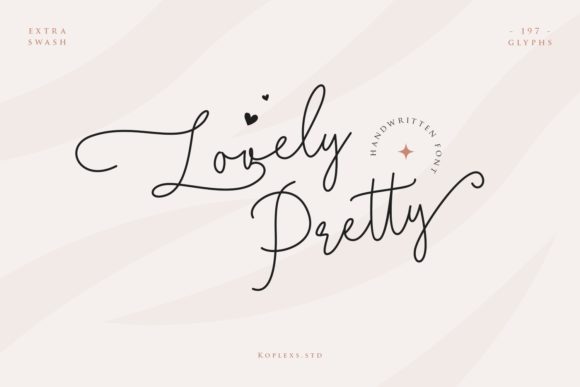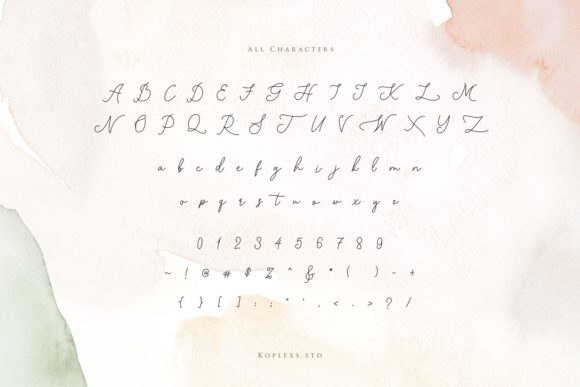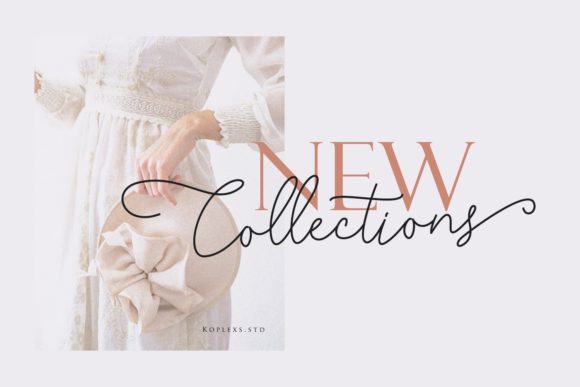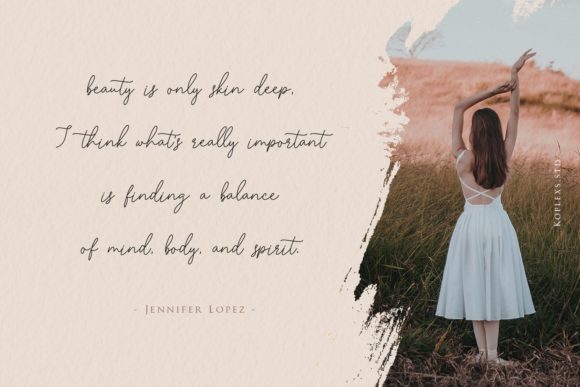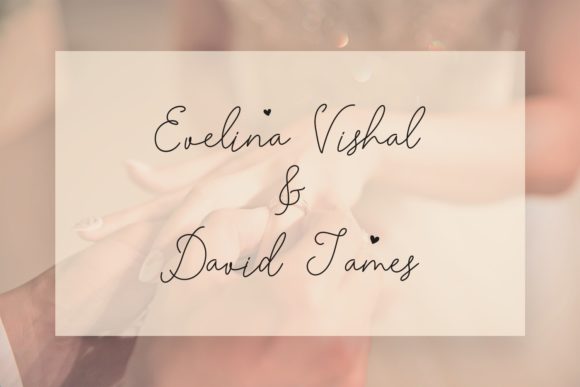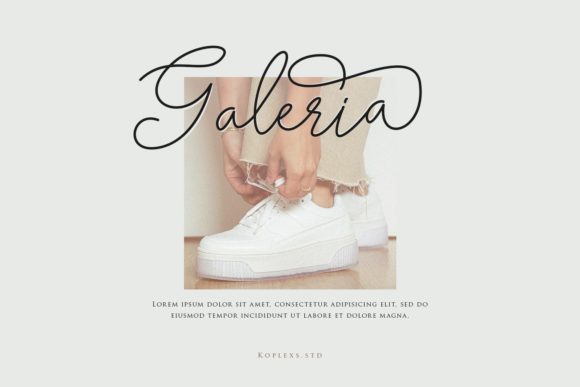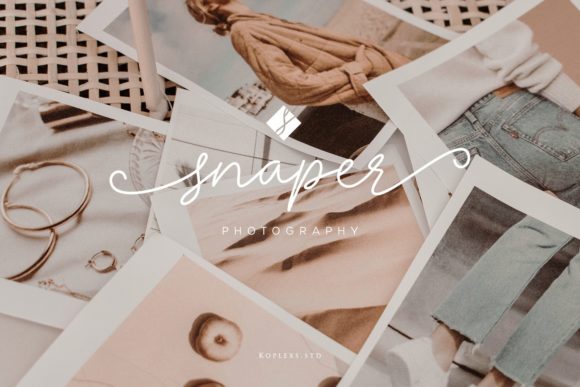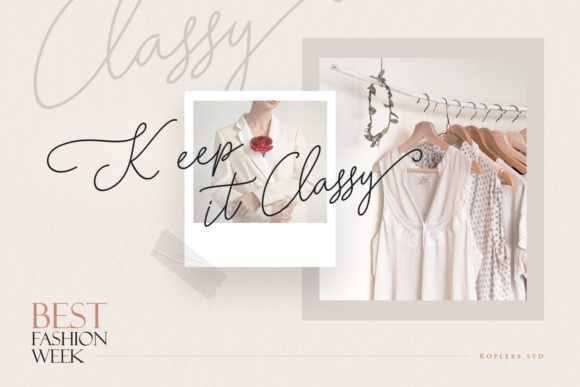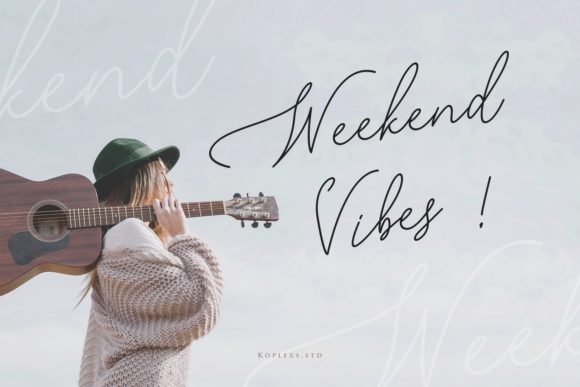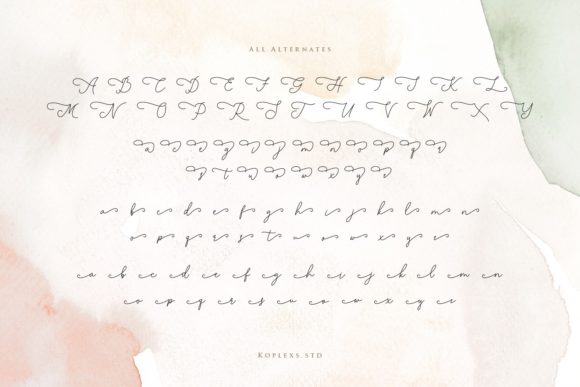
Lovely Pretty Font
About Lovely Pretty Font
Lovely Pretty is a delightful, sweet, and whimsical script font that seamlessly flows with elegance. With characters that dance along the baseline, this font brings a touch of luxury, adding a spark of charm to any design project you envision. What sets Lovely Pretty apart is its PUA encoding, ensuring effortless access to all the intricate glyphs and swashes, providing a wealth of creative possibilities at your fingertips.
The sweet and whimsical nature of Lovely Pretty makes it an enchanting choice for a variety of design projects. Whether you’re creating invitations, branding materials, or any piece that calls for a flowing script with a luxurious touch, Lovely Pretty stands ready to infuse your designs with a sense of grace and sophistication.
The characters that dance along the baseline give Lovely Pretty a dynamic and lively quality, enhancing the visual appeal of your text. This font’s unique charm shines through in its fluid strokes, creating a harmonious rhythm that adds a touch of playfulness and elegance to your overall design.
Lovely Pretty, being PUA encoded, opens up a world of creative options by allowing easy access to a multitude of glyphs and swashes. This feature empowers you to customize and personalize your designs effortlessly, ensuring that each project reflects your unique style and vision.
In summary, Lovely Pretty is more than just a font; it’s a versatile and sophisticated tool that brings a luxury spark to your design projects. Whether you’re creating invitations, branding materials, or any other creative endeavor, let Lovely Pretty be the script font that adds a delightful and charming allure, making your designs truly stand out.